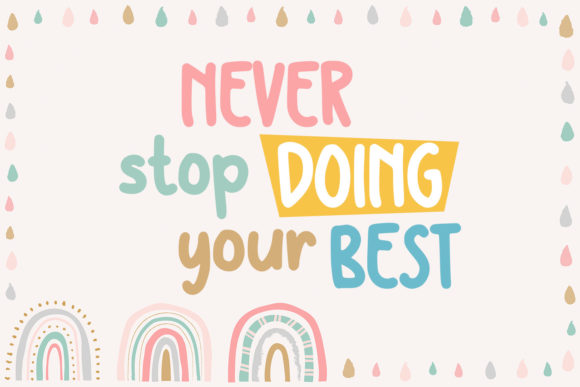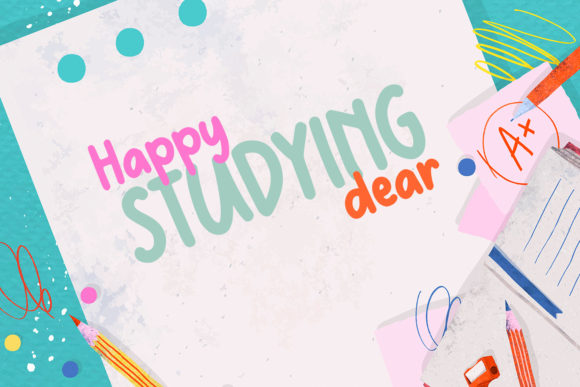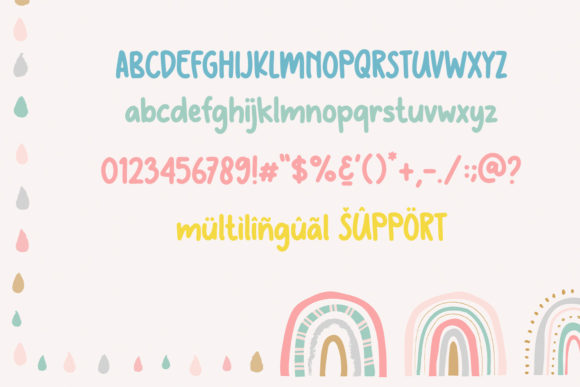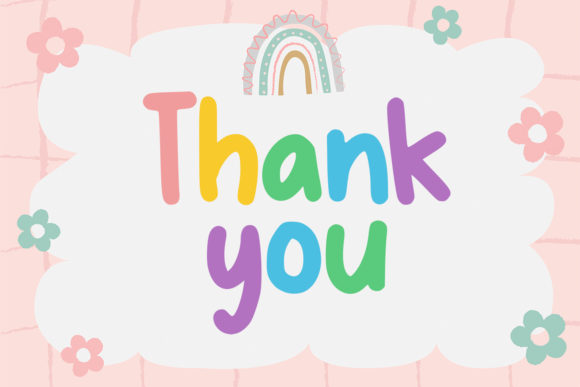
Meet Your New Favorite Font: Cactuss Font
Have you ever been working on a design project and suddenly, the perfect font pops into your head? For designers, it’s like finding that elusive missing piece that brings a whole new level of creativity and flair to your work. For me, that moment came when I stumbled upon the adorable Cactuss Font. Its cute and bold sans serif style immediately caught my attention, and I knew I had to learn more.
As a versatile and playful font, Cactuss is perfect for a variety of projects, from handwritten quotes and social media content to children’s books and teaching materials. Whether you’re looking to add a touch of whimsy or simplicity to your designs, Cactuss Font is a valuable addition to any designer’s toolkit. With its wide range of applications, it’s no wonder Cactuss Font has become a go-to choice for designers seeking a cute and simple feel in their work.
- Unique Characteristics: Cactuss Font features a unique blend of modern and minimalist design elements, with a distinctive cactus-inspired aesthetic that adds a touch of whimsy to any design.
Cactuss Font Review
Cactuss Font is an intriguing addition to the world of typography, offering a unique blend of desert charm and modern sophistication. ✨ I appreciate the font’s ability to evoke a sense of ruggedness and individuality, making it perfect for designers looking to add some personality to their projects.
One of the standout features of Cactuss Font is its excellent legibility. ✨ The font is clear and easy to read, even at smaller font sizes, making it suitable for a wide range of applications, from signage to digital interfaces.
- ⚠️ Limited character set: While the font offers a wide range of characters, it falls short in terms of language support. Designers working on multilingual projects may find this limitation frustrating.
- ⚠️ Not suitable for fine typography: Cactuss Font is best used in bold, eye-catching applications. For finer typography, you may want to consider a more traditional serif or sans-serif font.
Overall, I’m impressed with Cactuss Font’s unique personality and versatility. ✨ While it may not be the perfect choice for every project, it’s a great addition to any designer’s toolkit.
Cactuss Font is ideal for:
- Creating modern and trendy designs.
- Adding a touch of whimsy and playfulness to your designs.
- Creating custom graphics and illustrations.